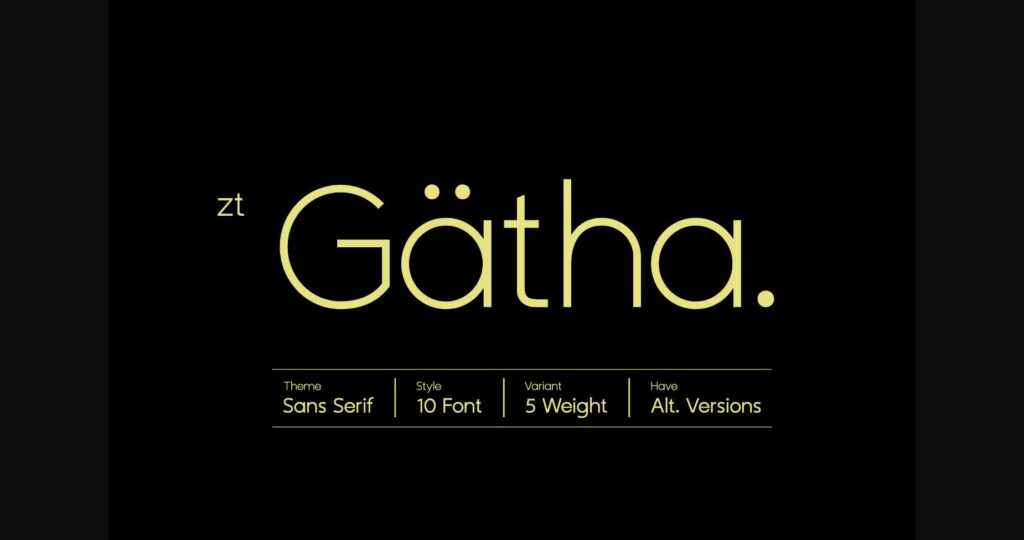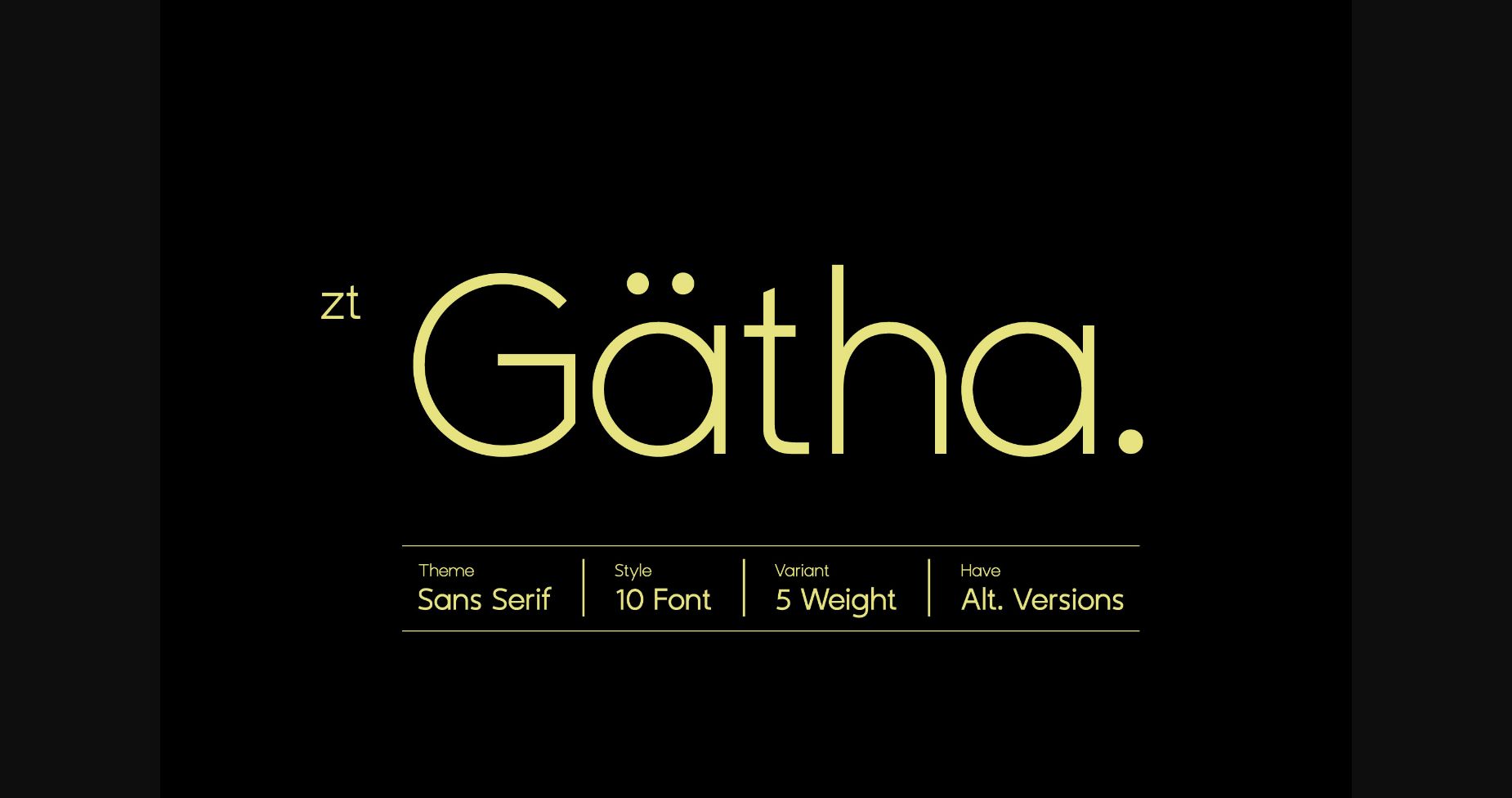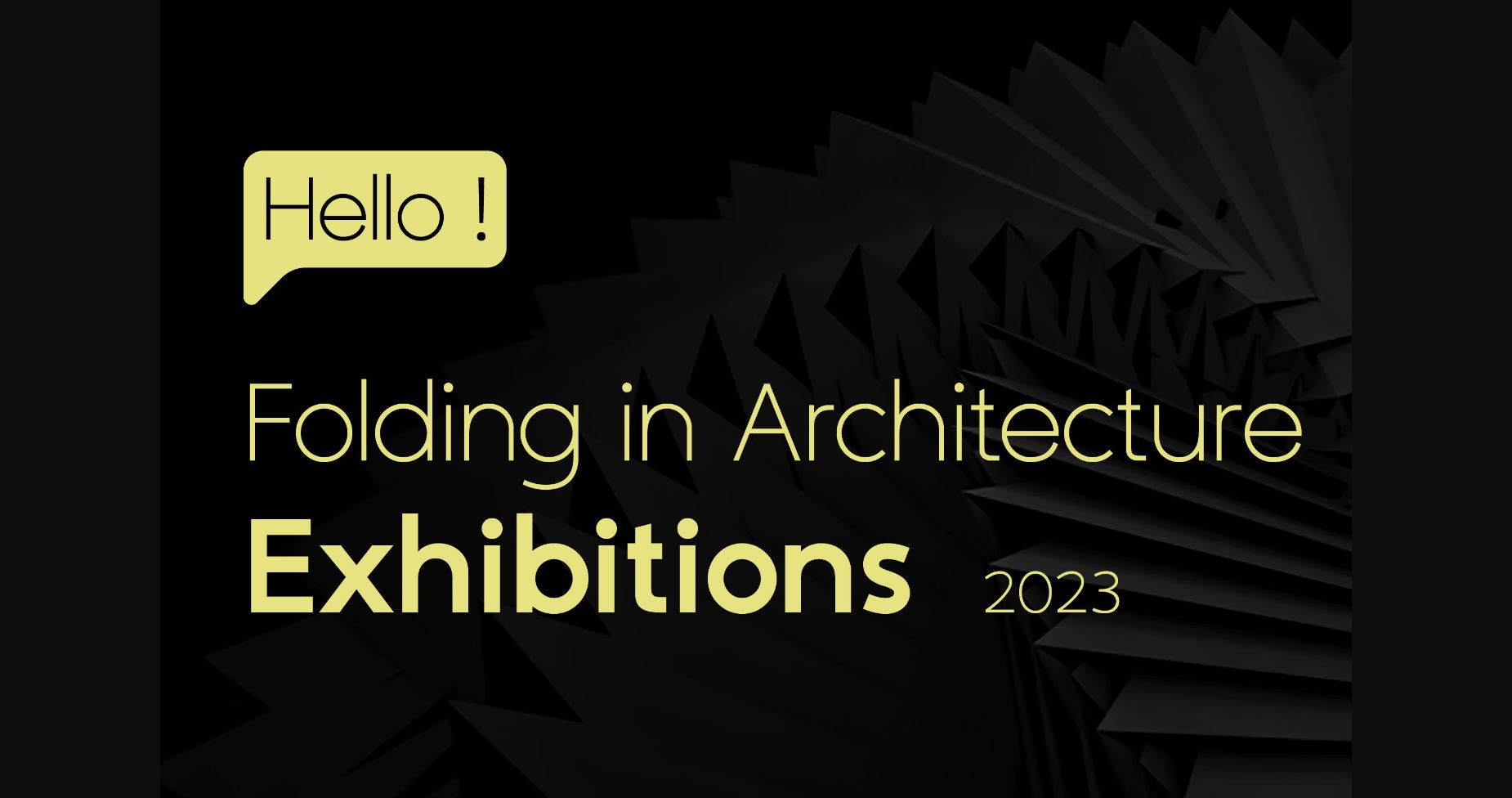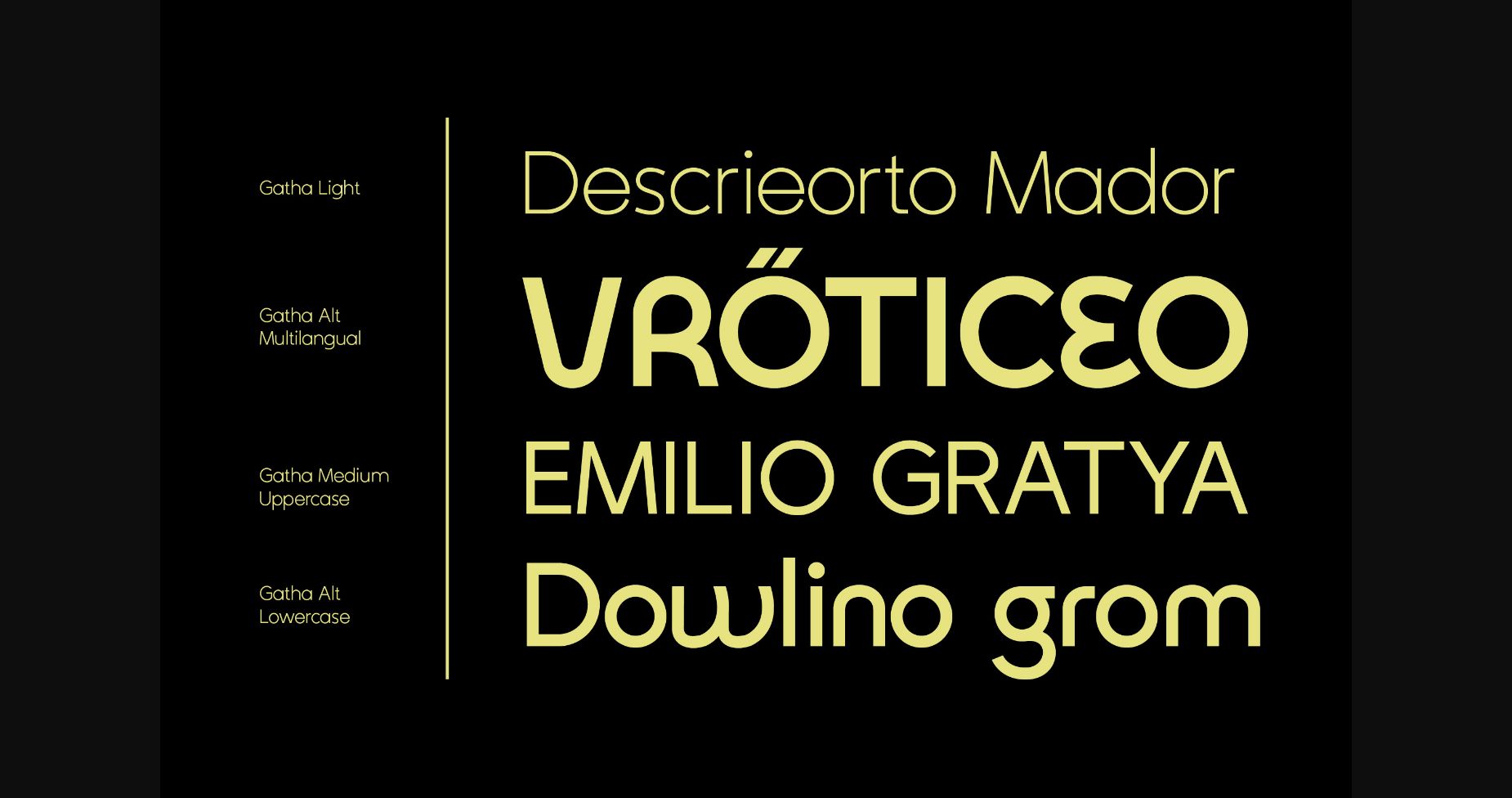
About Zt Gatha Font
This modern sans-serif font is perfect for any project. Zt Gatha has a contemporary feel with sharp edges and clean lines, providing an elegant and sophisticated look. It’s versatile and highly legible, making it a great choice for any design.